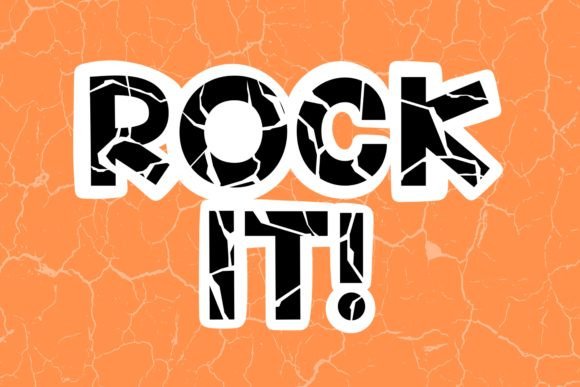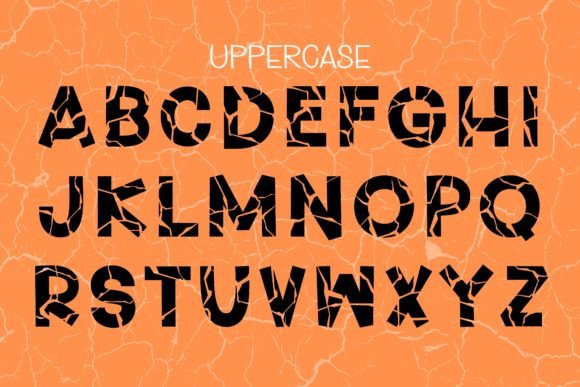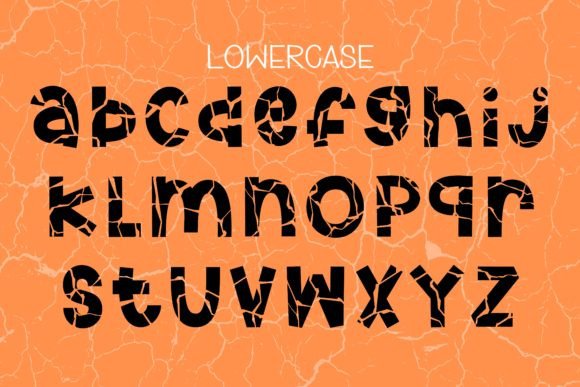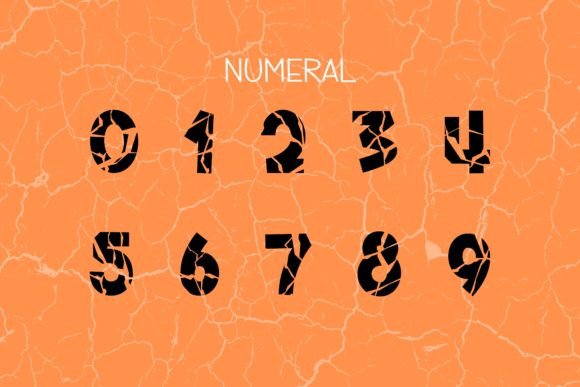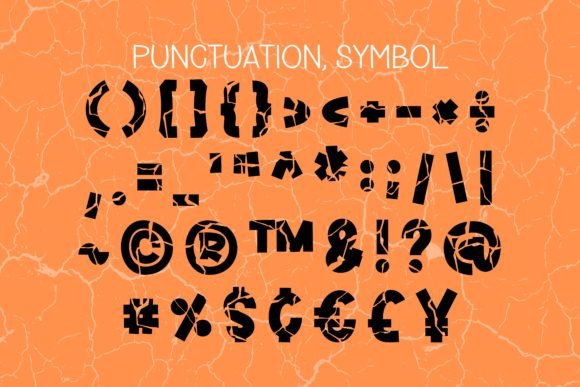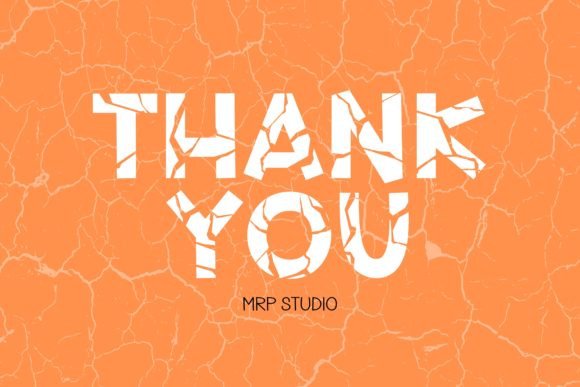
Crack Font: A Playful and Friendly Decorative Font Style
In the world of typography, fonts play a crucial role in conveying the tone and personality of a design. For designers and crafters, finding the right font can make all the difference in creating visually appealing and engaging content. One such font that has gained popularity for its playful and friendly decorative style is the Crack Font. Designed to add a touch of whimsy to any project, Crack Font is a wonderful asset to any font library.
What is Crack Font?
Crack Font is a decorative font designed with a playful and friendly style in mind. Its unique and quirky design makes it perfect for a wide range of projects, from creative crafts to digital designs. The font’s distinctive style is characterized by its irregular shapes and lines, giving it a charming and informal feel.
Key Features of Crack Font
- Playful and Friendly Style: Crack Font is designed to add a touch of playfulness to any project. Its friendly style makes it perfect for designs that require a approachable and informal tone.
- Decorative and Quirky: The font’s unique design features irregular shapes and lines, giving it a charming and whimsical feel.
- Versatile: Crack Font can be used for a wide range of projects, from creative crafts to digital designs, and can be adapted to suit various themes and topics.
- Easy to Read: Despite its decorative style, Crack Font is easy to read, making it perfect for use in body text, headings, and titles.
Uses of Crack Font
Crack Font is a versatile font that can be used in various design projects. Here are some of the ways designers and crafters can use this font:
- Creative Crafts: Crack Font is perfect for creative crafts, such as scrapbooking, card making, and journaling.
- Digital Designs: The font can be used in digital designs, such as social media graphics, blog posts, and website headers.
- Signage and Posters: Crack Font can be used to create eye-catching signage and posters for events, promotions, and advertisements.
- Branding and Packaging: The font can be used in branding and packaging designs to add a touch of personality and whimsy.
Benefits of Using Crack Font
Using Crack Font in design projects offers several benefits, including:
- Unique and Eye-Catching Designs: Crack Font’s playful and friendly style helps create unique and eye-catching designs that stand out from the crowd.
- Enhances Creativity: The font’s quirky design encourages creativity and experimentation in design projects.
- Versatility: Crack Font can be used in various design projects, making it a valuable addition to any font library.
Crack Font is a playful and friendly decorative font style that can enhance any design project. Its unique and quirky design makes it perfect for creative crafts, digital designs, signage, and branding projects. With its versatility, ease of use, and eye-catching style, Crack Font is a wonderful asset to any font library. Whether you’re a designer or crafter, Crack Font is a great addition to your toolkit, and can help you create visually appealing and engaging content that stands out from the crowd.